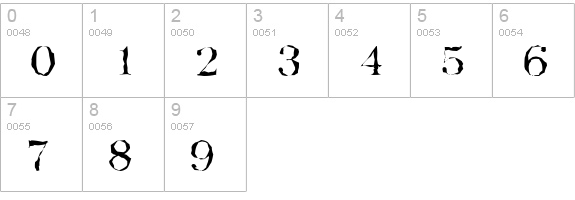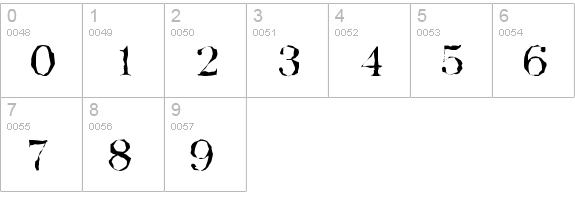
BaskervilleRandom-Light-Regular is a refined, elegant variant in the BaskervilleRandom typeface family \xE2\x80\x94 well suited to elegant body text, refined sub-headings, and luxury branding.
BaskervilleRandom-Light-Regular is a stylish and versatile font that exudes elegance and sophistication. With its clean lines and modern aesthetic, this font is perfect for a wide range of design projects, from branding to editorial design. Its light weight adds a touch of delicacy and refinement to any text, making it ideal for conveying a sense of sophistication and class. What's even better is that BaskervilleRandom-Light-Regular is available for free download at FontsMarket.com. This means you can easily access this beautiful font and incorporate it into your projects without any cost. Don't miss out on the opportunity to enhance your designs with this exquisite typeface that is both timeless and contemporary. Download BaskervilleRandom-Light-Regular today and elevate your design work to new heights.